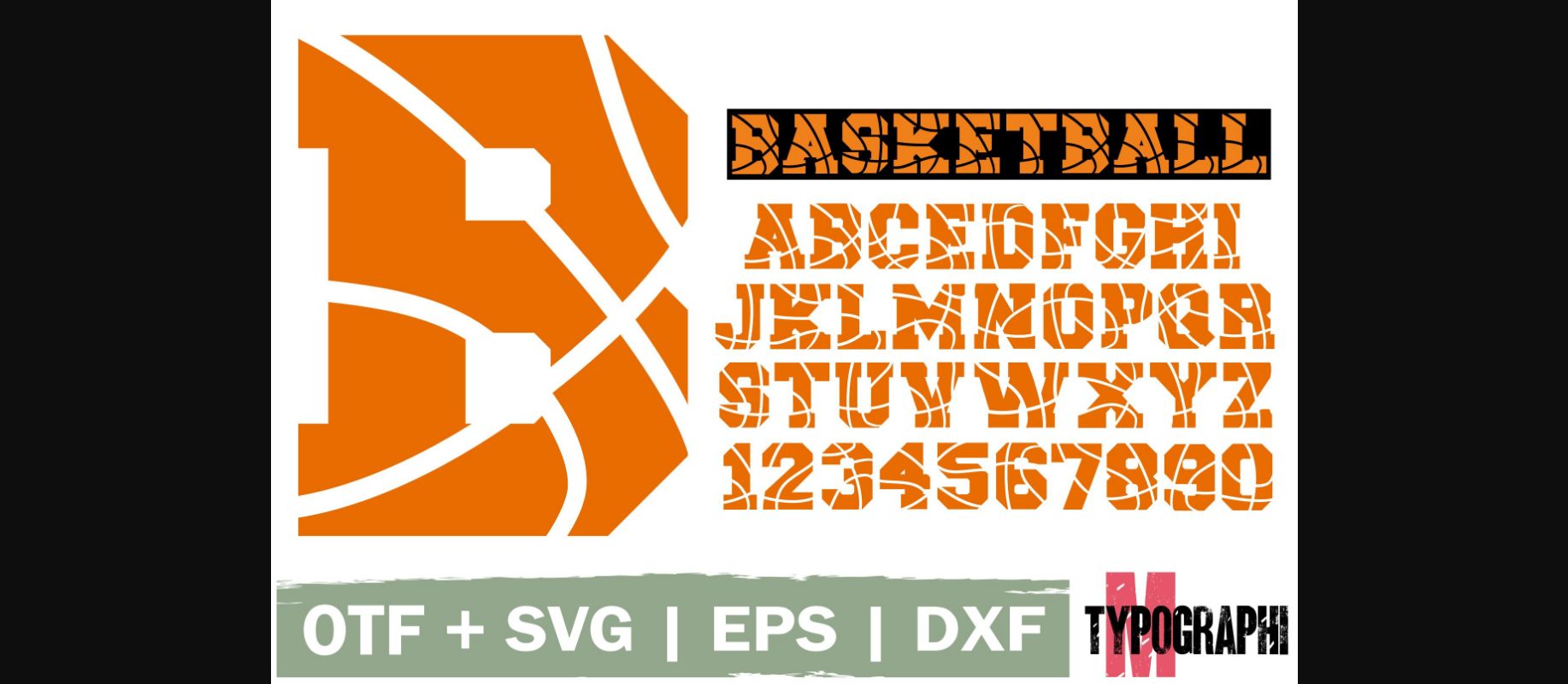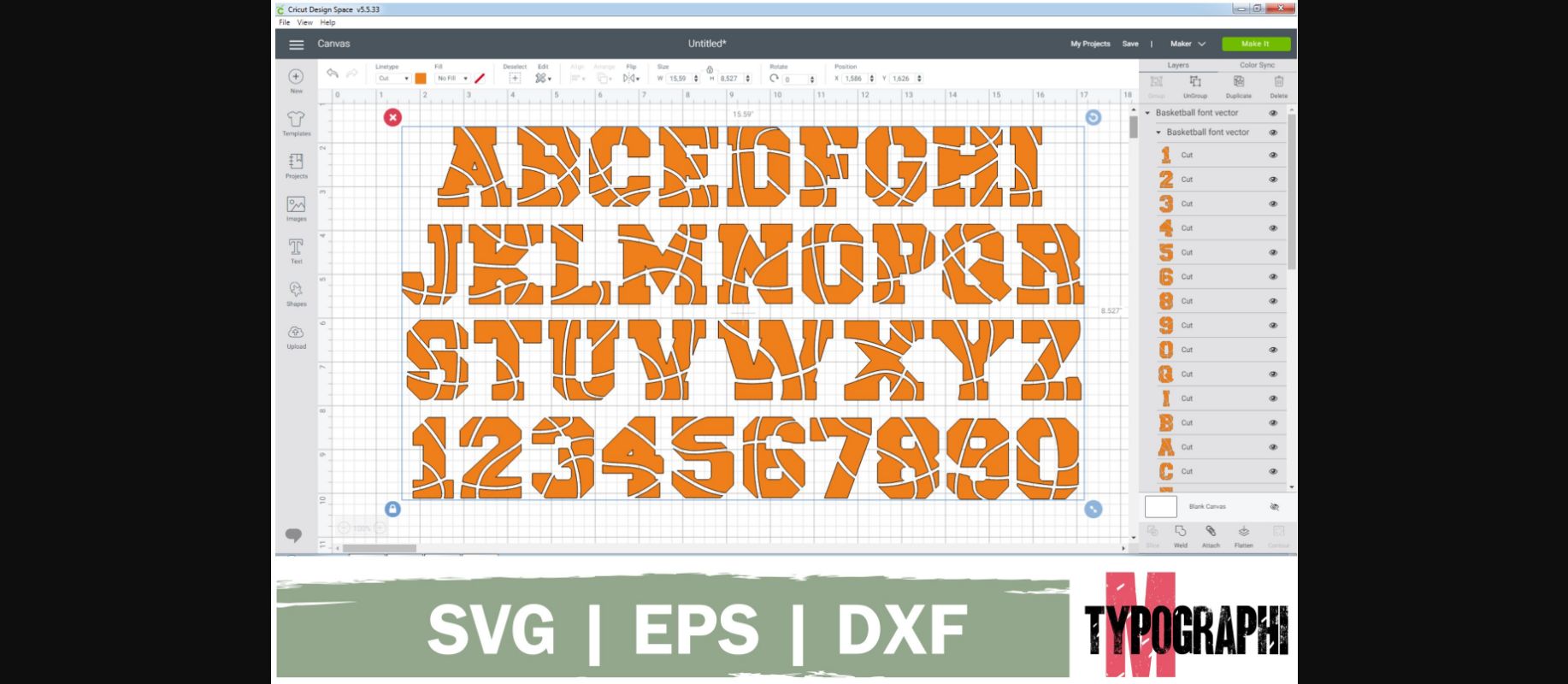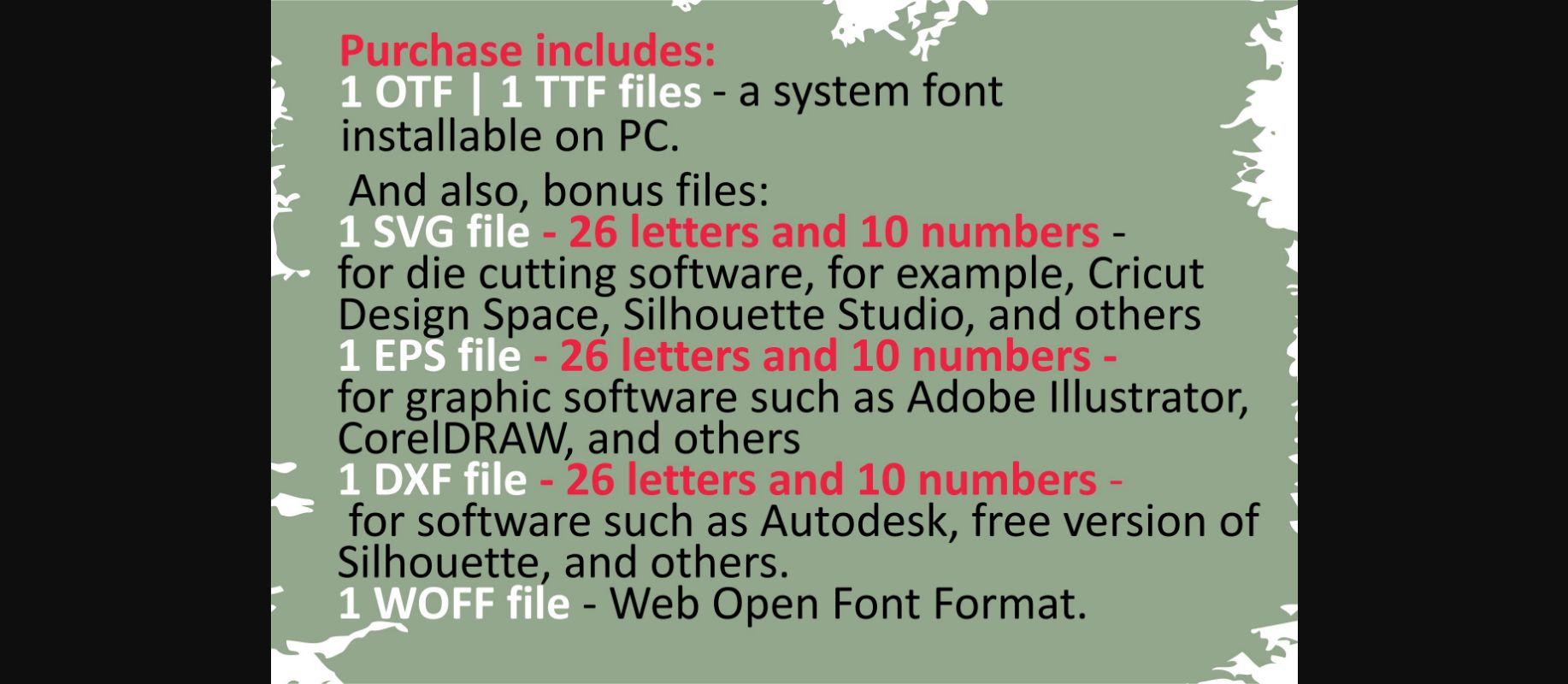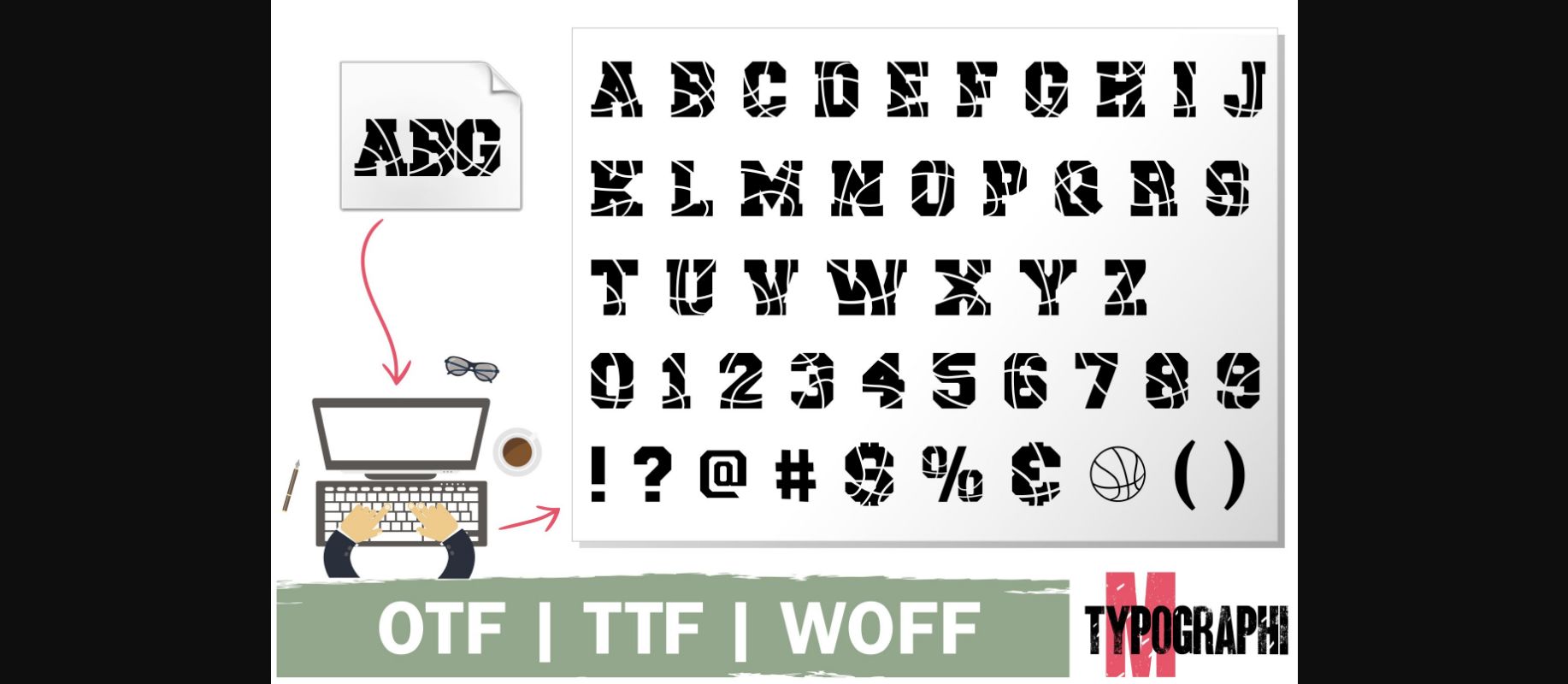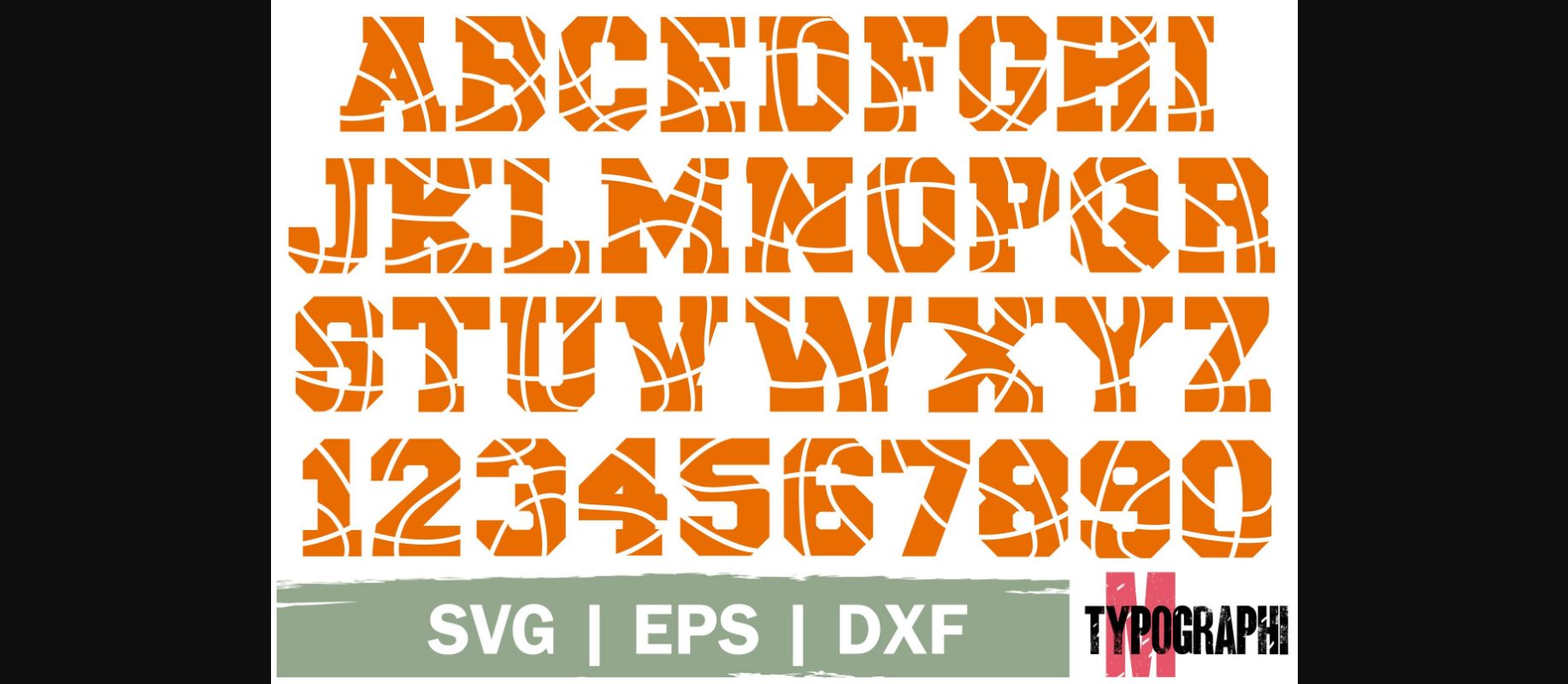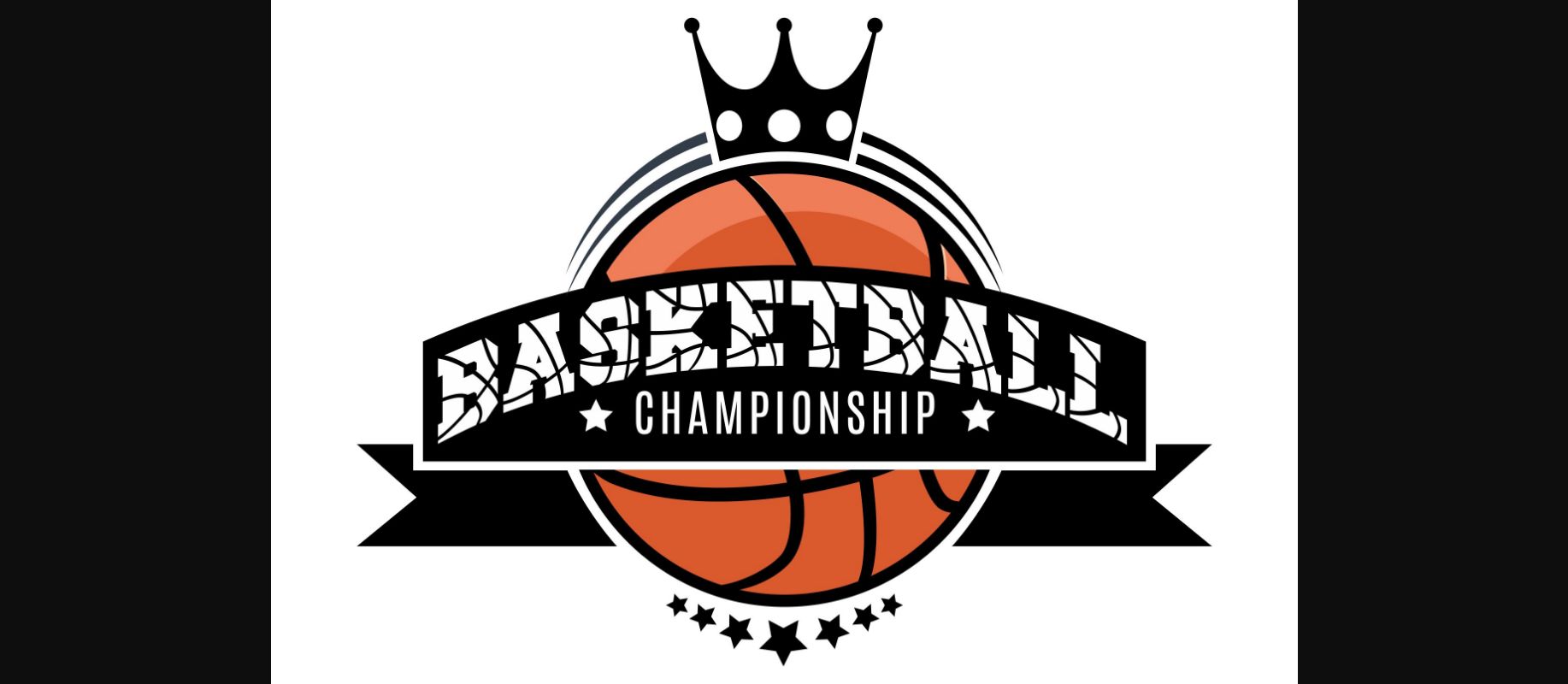
About Basketball Font
Basketball is a dynamic and sporty decorative font that features Basketball-themed ornaments in each letter. It will look especially great in any sports, team or gaming project!